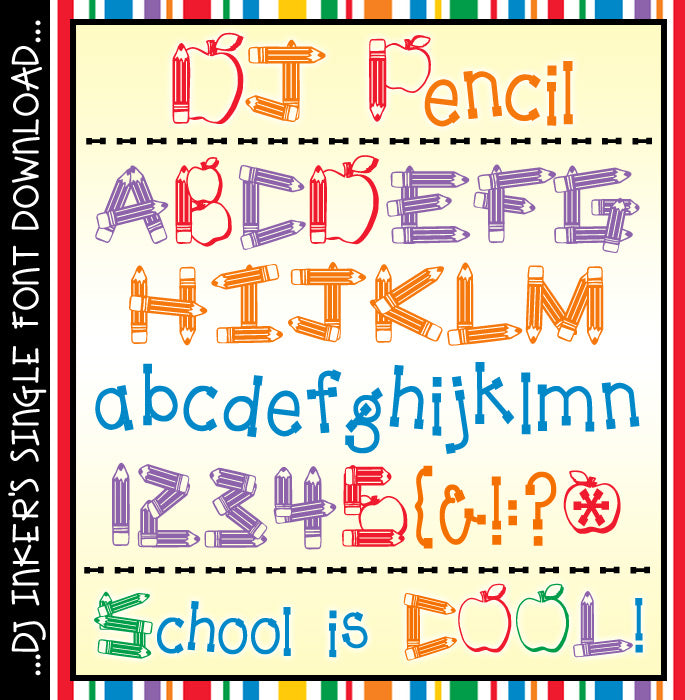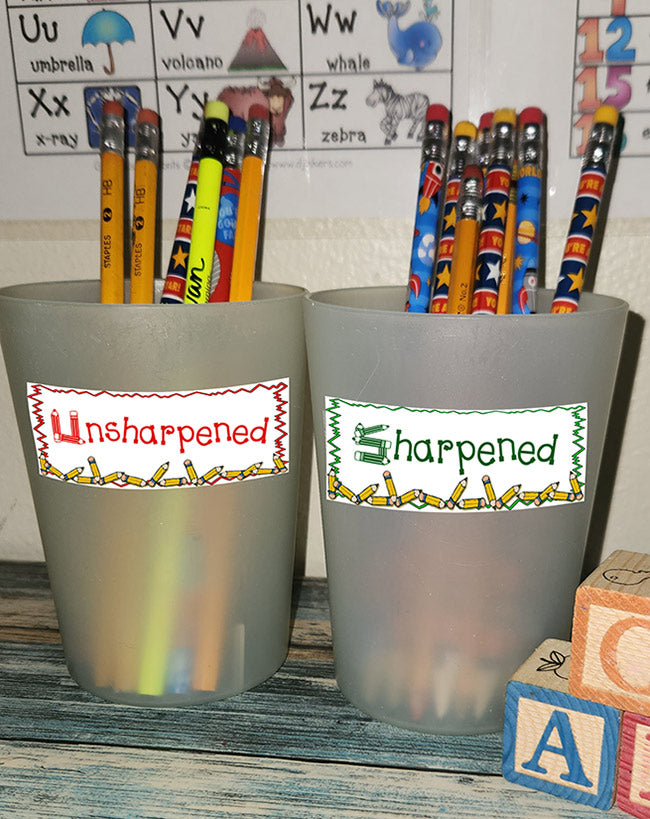
A whimsical Pencil font for teachers by DJ Inkers
DJ's Pencil font is great for spelling out anything school! This bold, decorative, font looks best it large sizes and strong colors, with capital letters made of pencils and apples!  Perfect for school headlines, desk nameplates, classroom signs, teacher gifts and more.